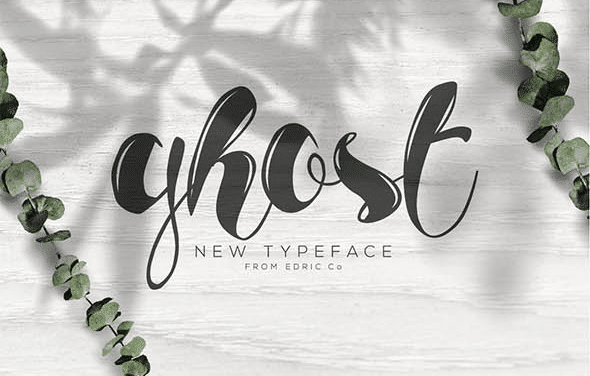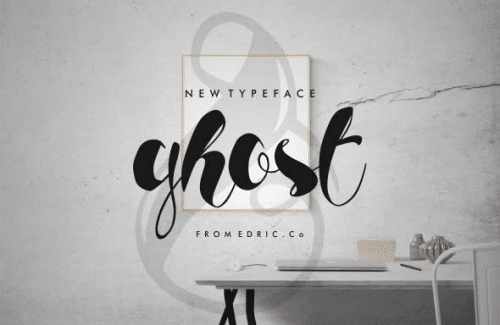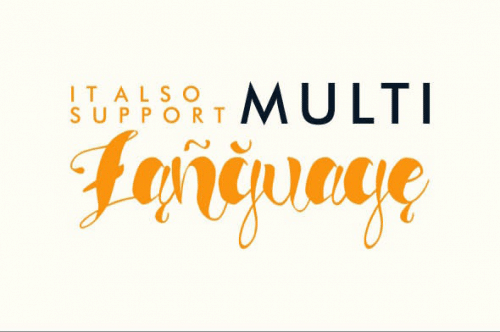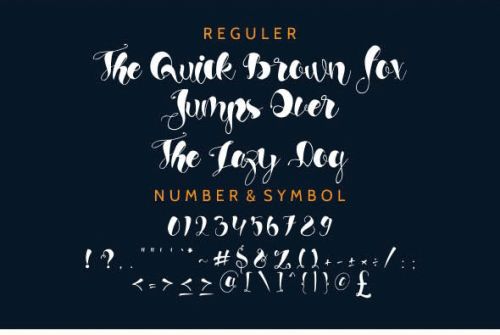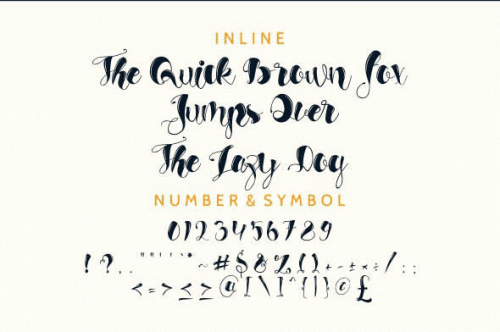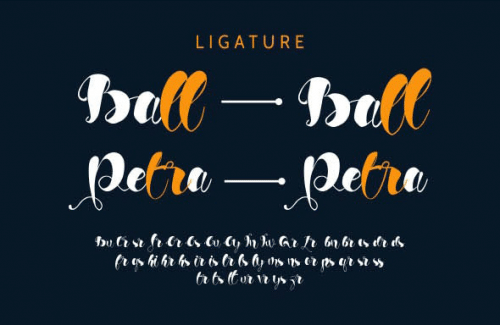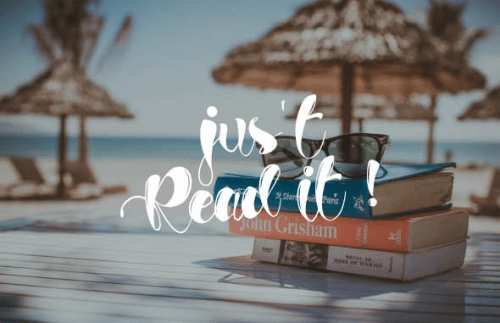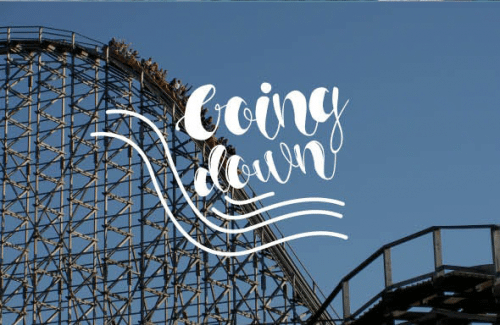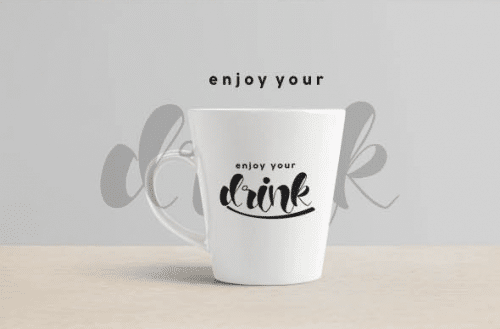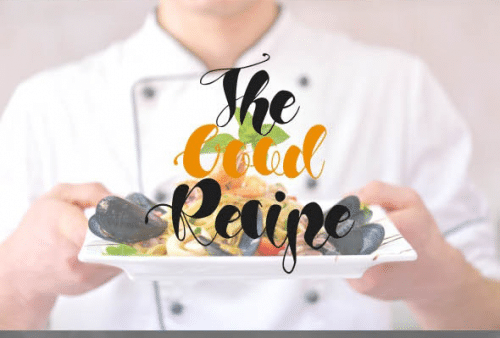
Meet our new family : GHOST ! Dont be scared, it’s a Script Calligraphy Duo. Got 2 styles: inline and regular. It’s bold, beauty yet clearly unique.
Made by HAND from sketch. This sophisticated handwritten calligraphy font will be awesome for any projects that need handwriting that looks elegant, natural, stylish, classy, strong and beautiful.